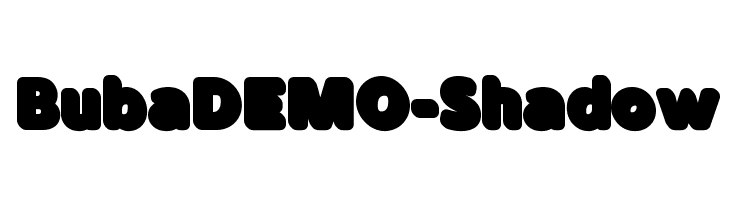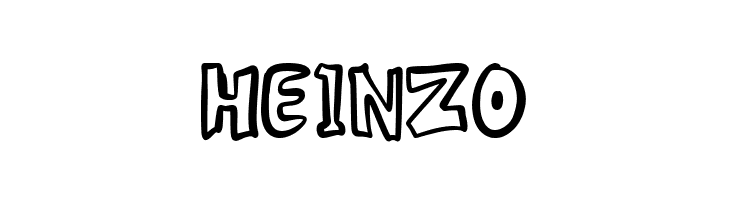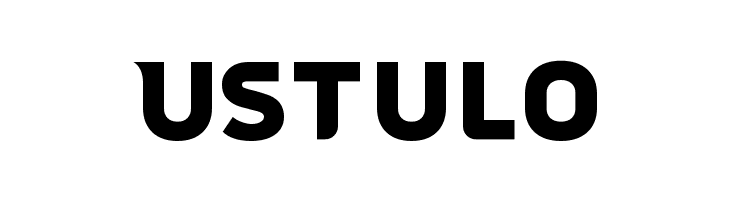
A bold, angular font with a futuristic and energetic style.
A sleek, modern font with geometric, thin lines and rounded edges.
( Fonts by weknow - Wino S Kadir )
A playful, rounded font with smooth curves and uniform strokes.
( Fonts by Lois )
A playful, hand-drawn font with bold, irregular characters and unique embellishments.
A bold, sketch-style font with a hand-drawn, textured appearance.
( Fonts by Ingo Zimmermann - www.ingofonts.com )
A classic serif font with elegant strokes and pronounced serifs.
A modern, italicized hollow font with clean lines and geometric shapes.